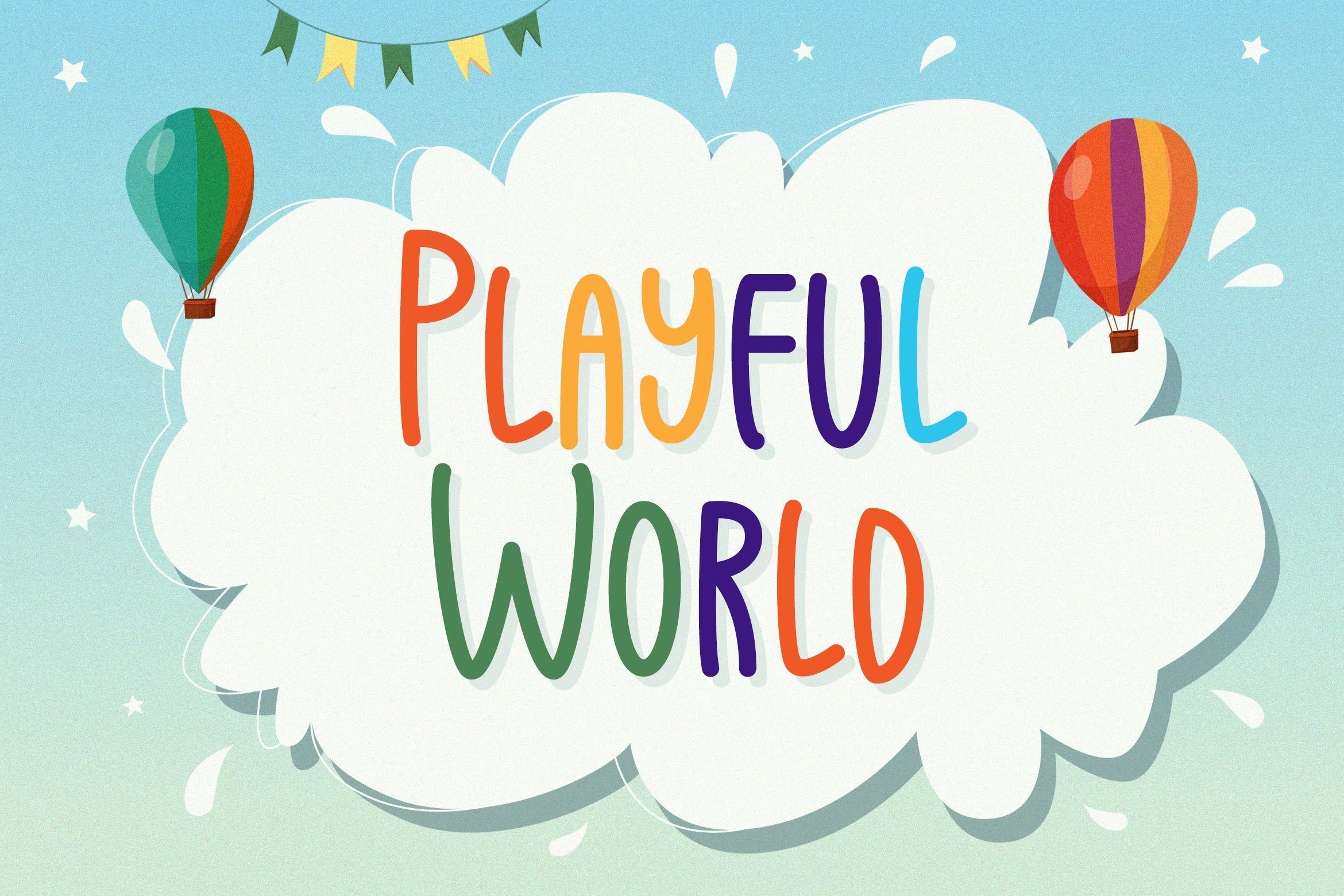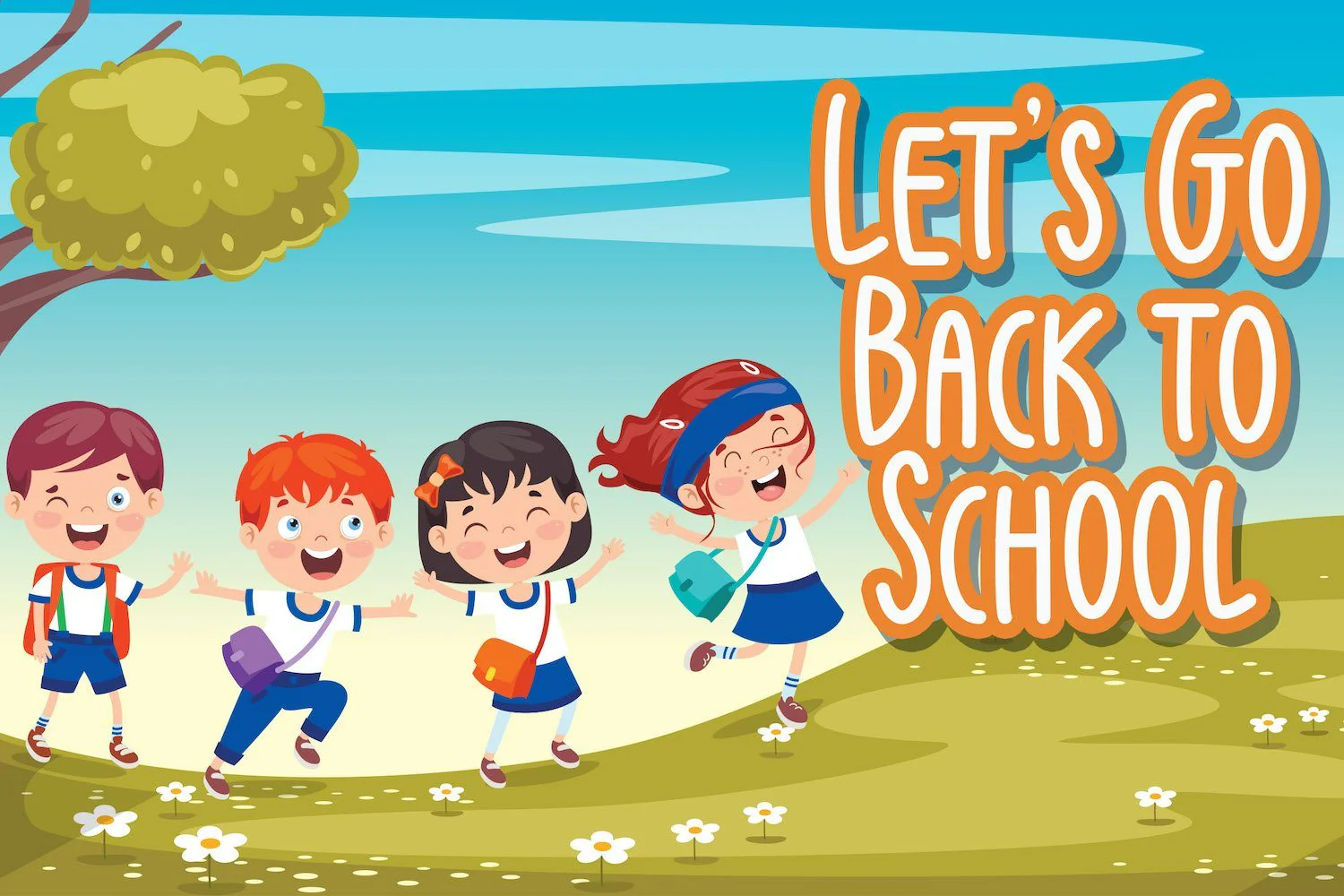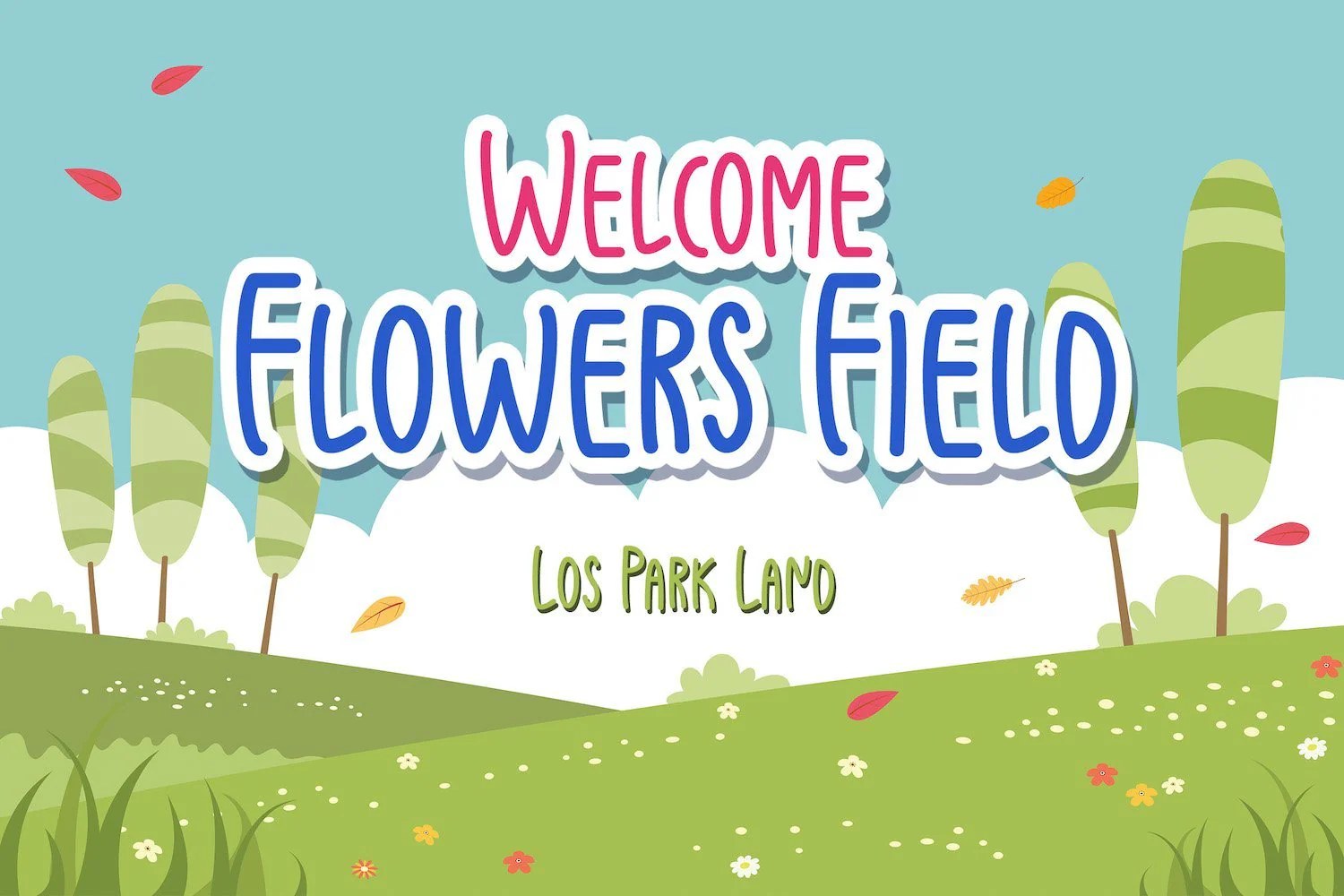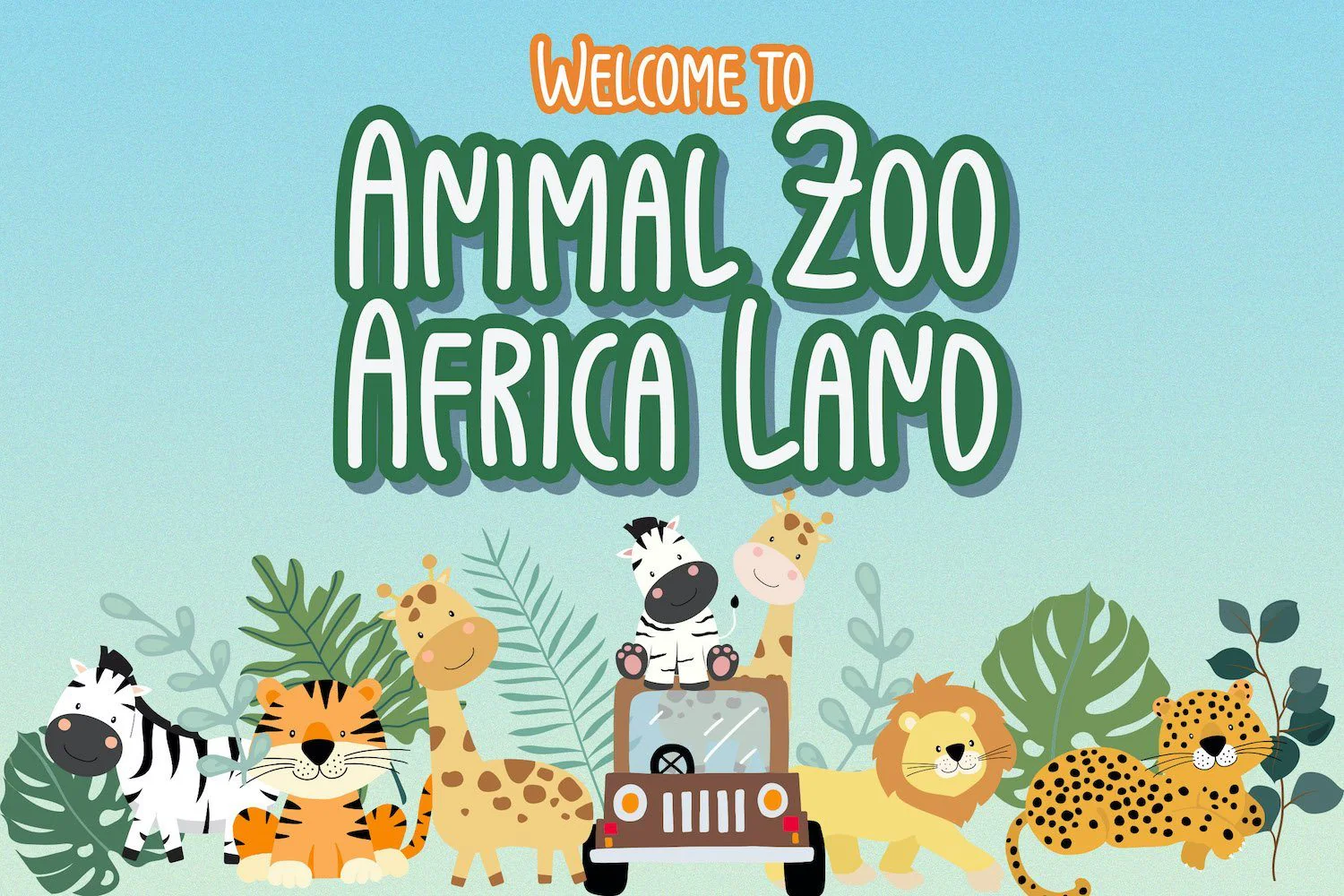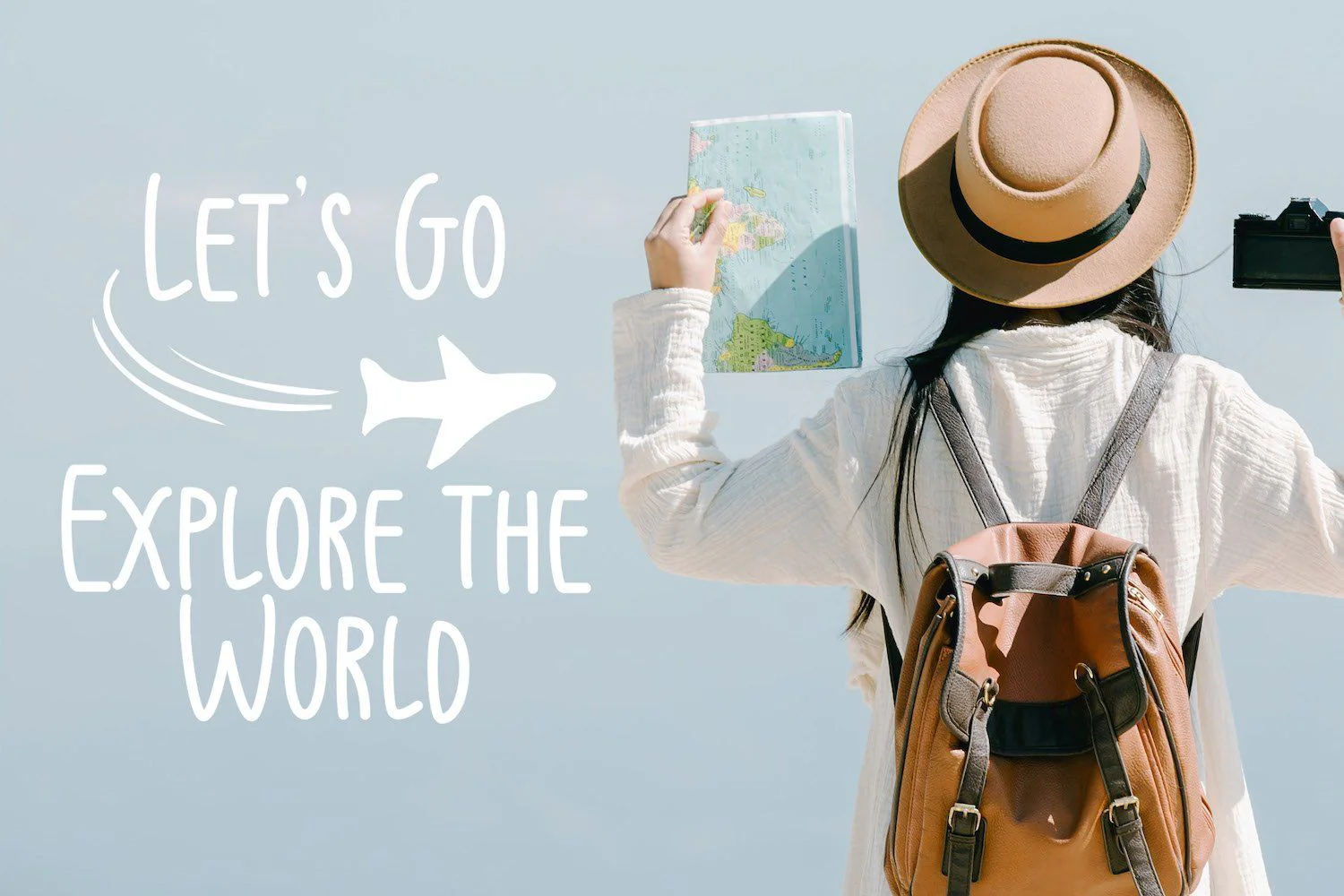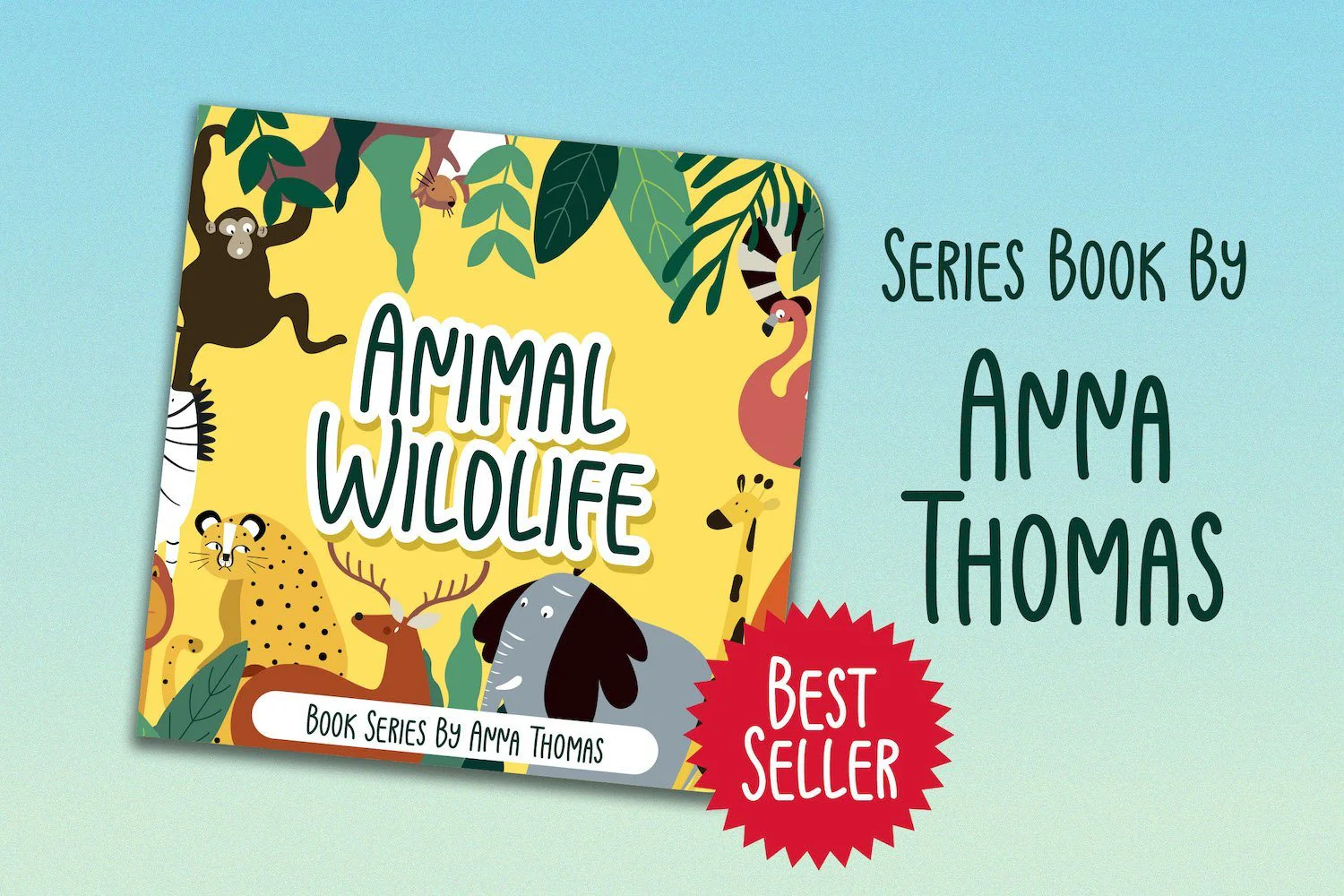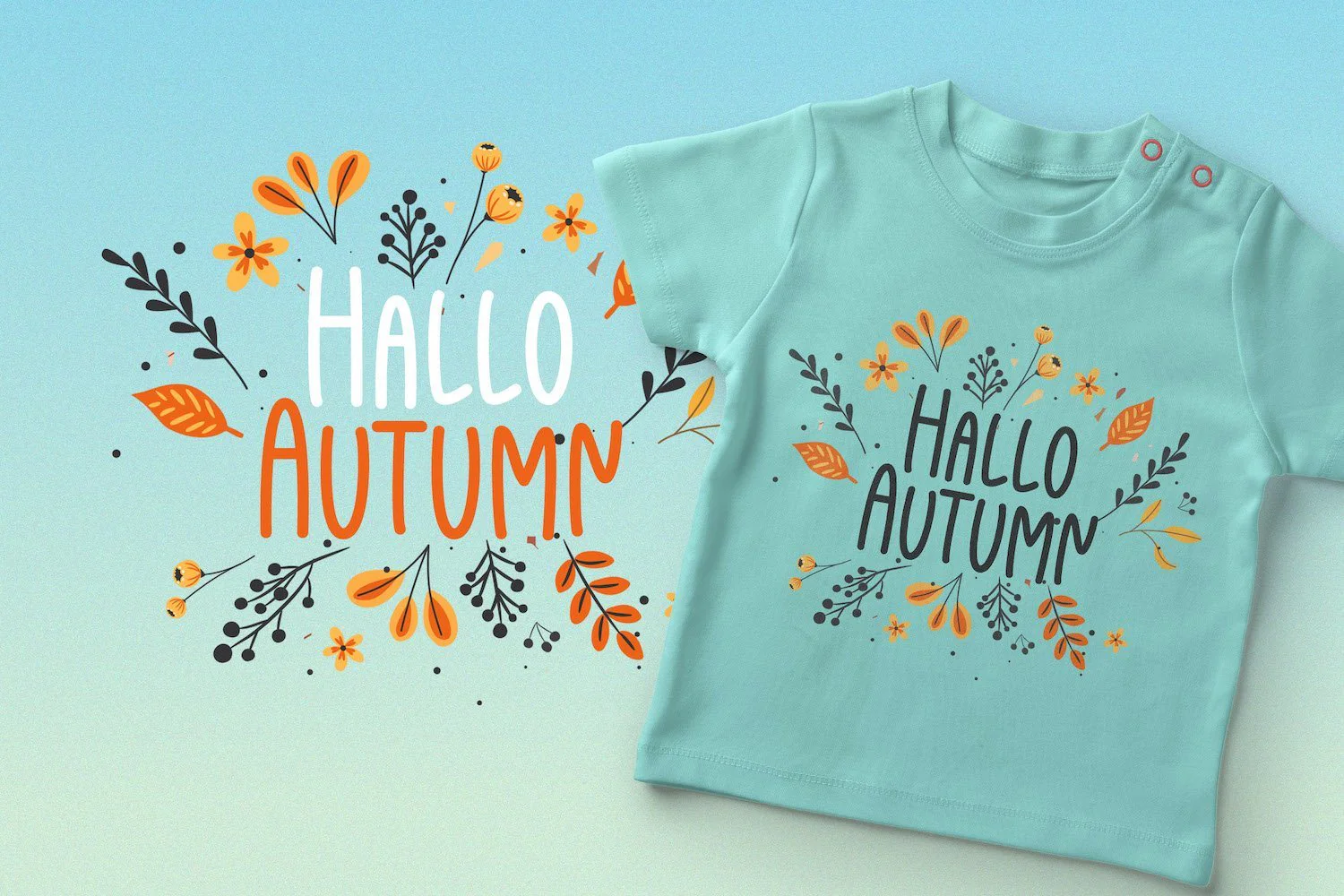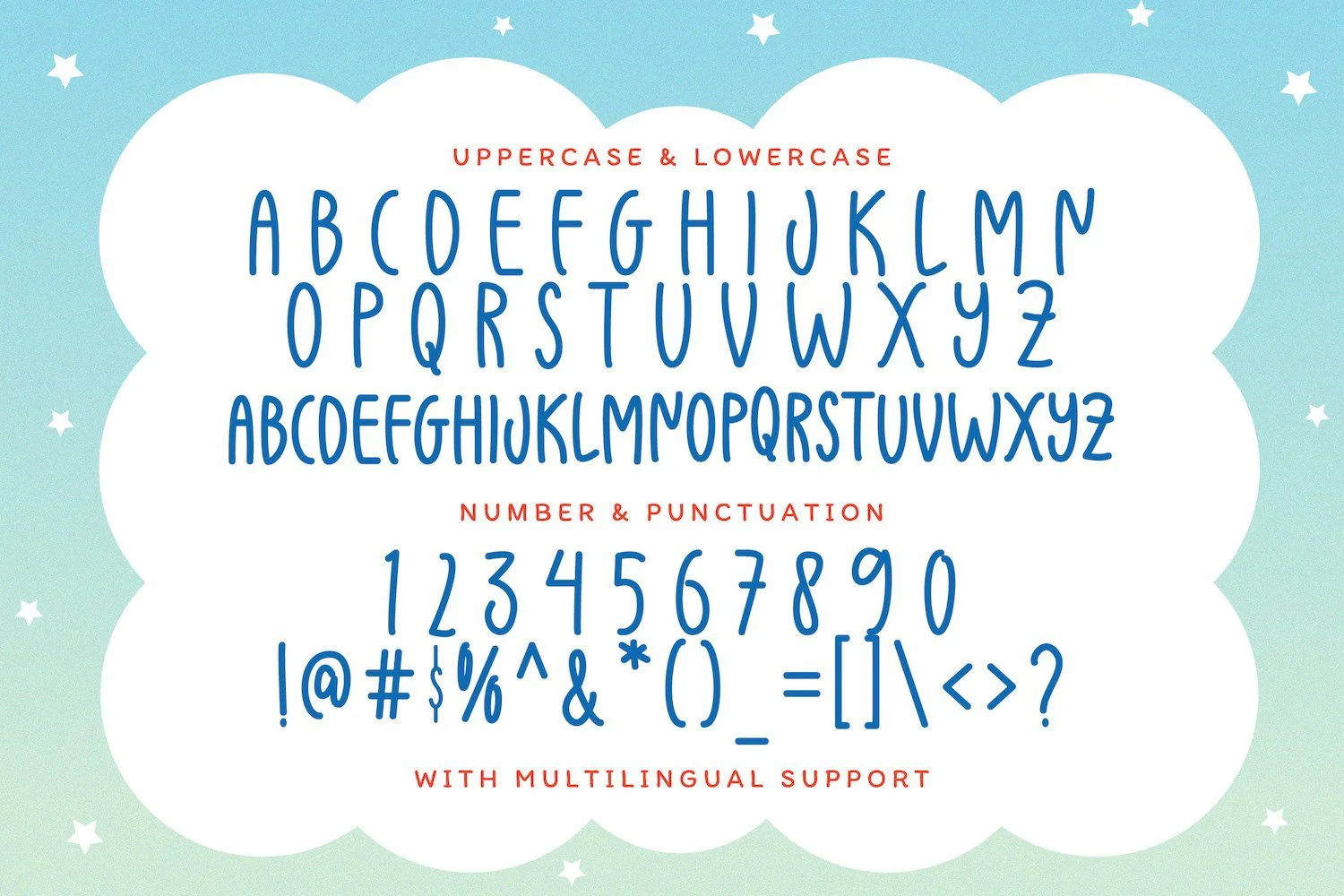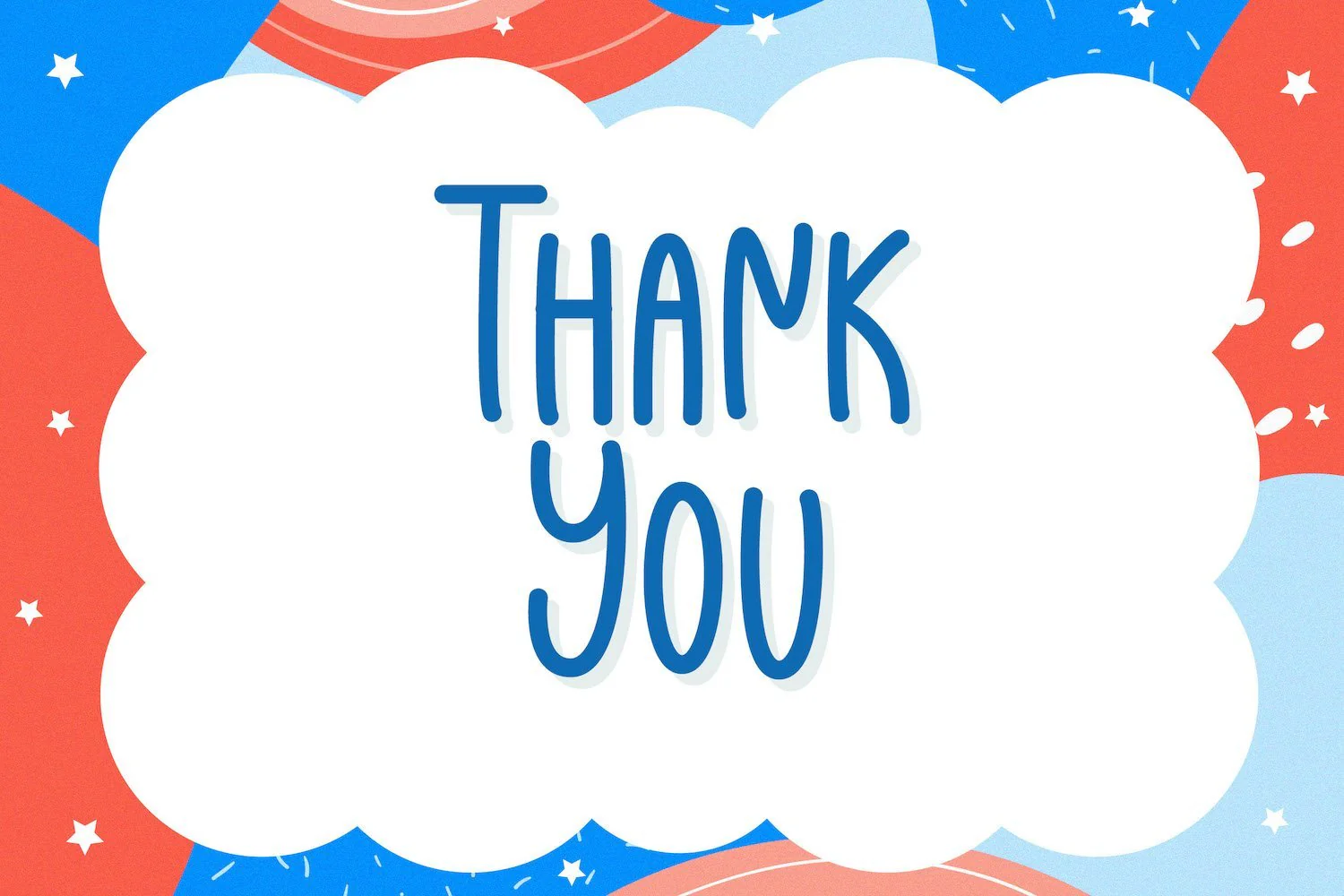
Playful World - Playful Display Font
Introducing Playful World - Playful Display Font
Playful World is a fun and chunky lettered display font. Playful and fresh, this font will be a hit for each of your children or school projects!
Introducing Playful World - Playful Display Font
Playful World is a fun and chunky lettered display font. Playful and fresh, this font will be a hit for each of your children or school projects!